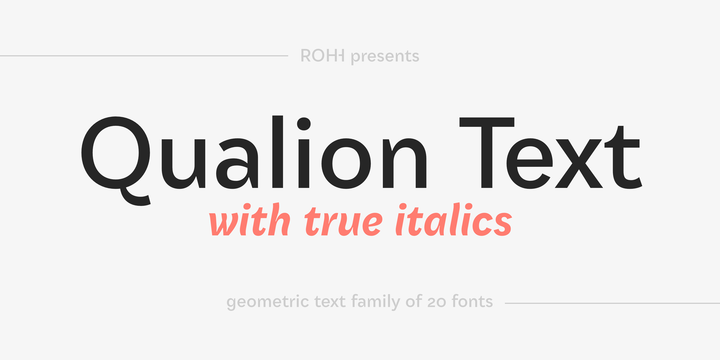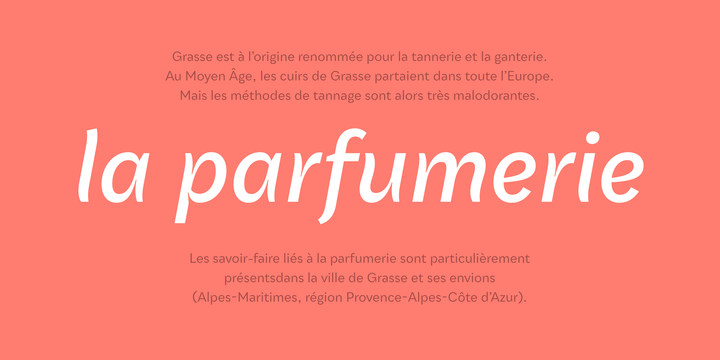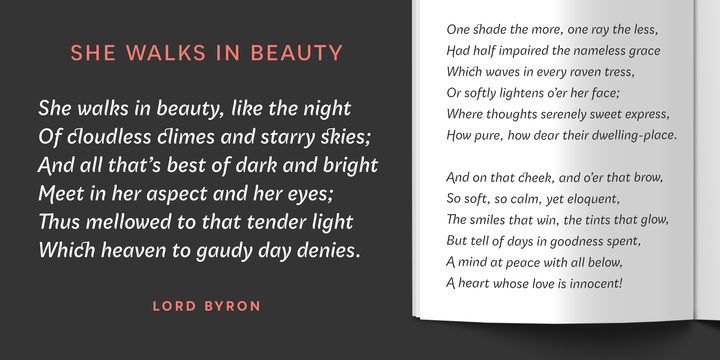
Qualion Text Font Family
Qualion Text™ is a modern geometric sans serif typeface with humanist and calligraphic inspirations. It is a text family designed for excellent legibility.
Qualion Text™ is a sibling of Qualion™, geometric family with lots of swashes and ornaments. Letter shapes and proportions has been adjusted to fit paragraph text and small sizes:
– typeface is narrower now in order to fit more text in the design space
– larger stroke contrast
– pronounced ink traps and tapering
– elegant true italics made even more calligraphic
– adjusted spacing and kerning
– adjusted font weights